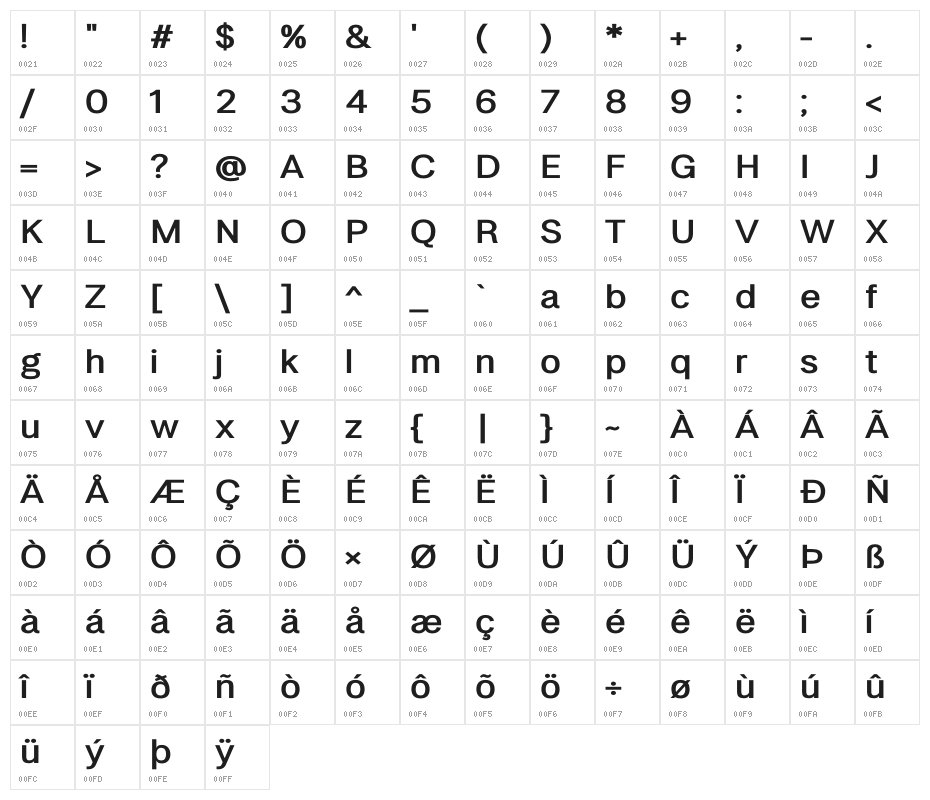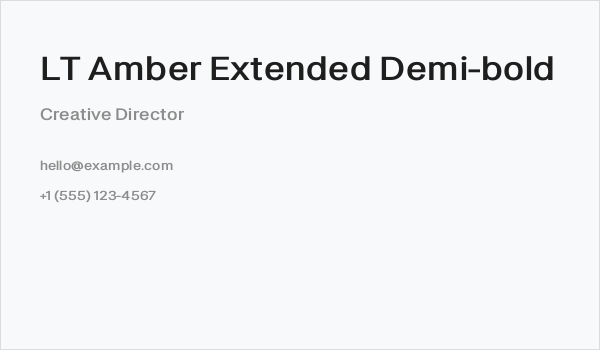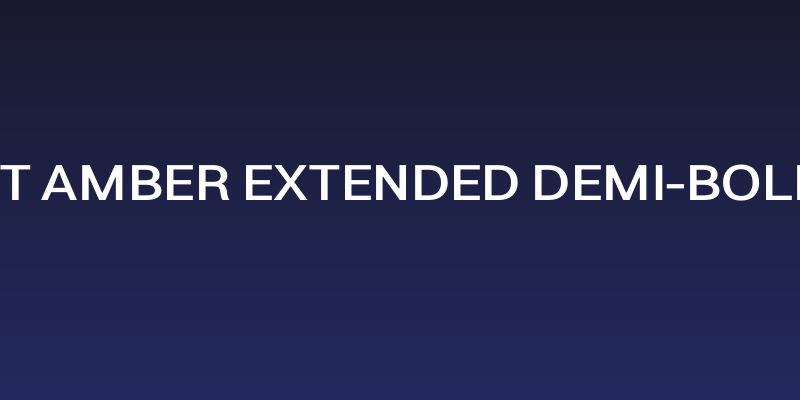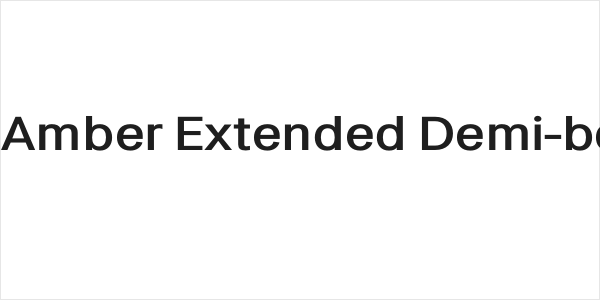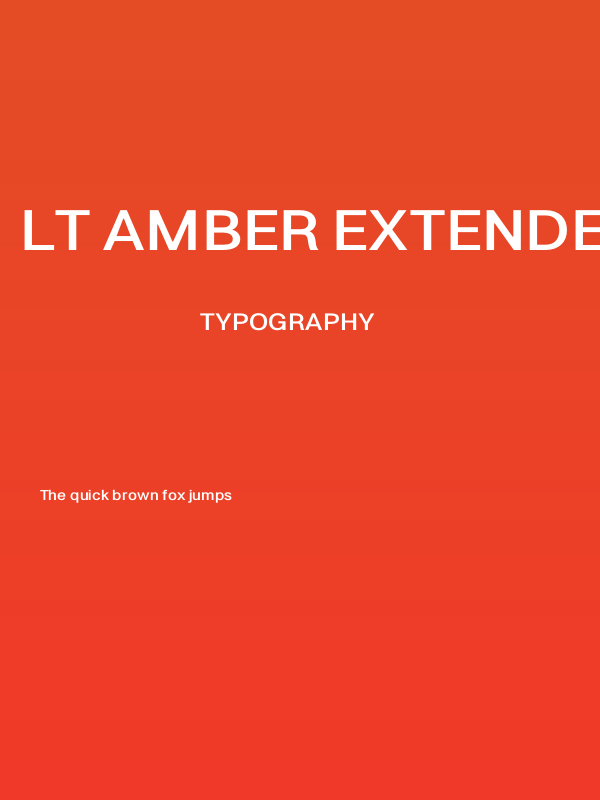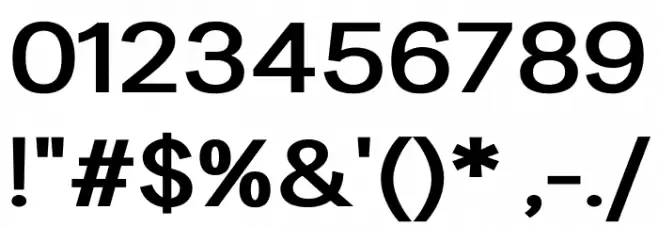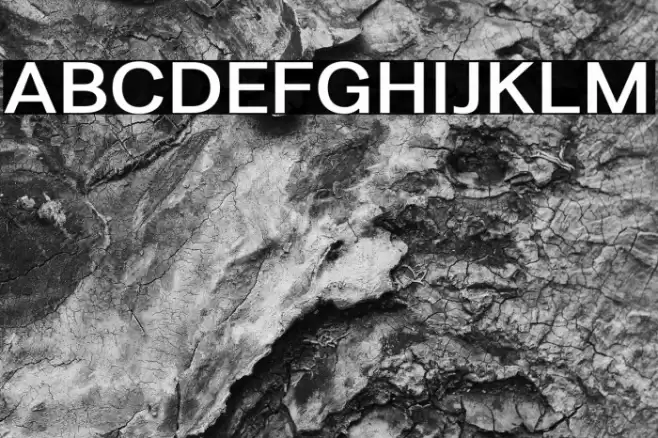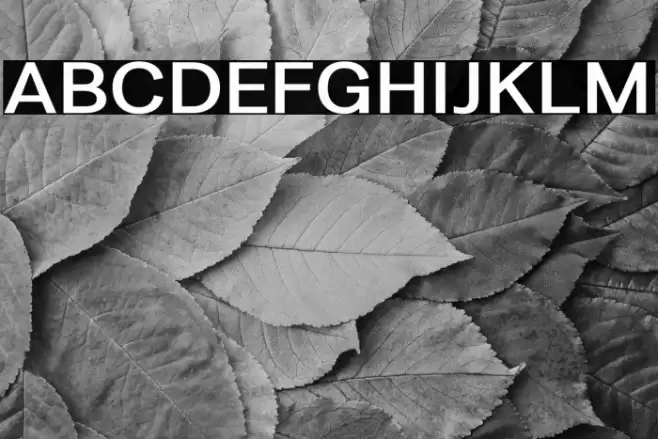
LT Amber Extended Demi-bold Font
This font features a clean and modern sans-serif design with an extended width, providing a bold and impactful appearance. The characters are well-defined with consistent stroke thickness, making it highly legible. The uppercase and lowercase letters maintain a uniform style, while the numerals are clear and distinct. Special characters are included, offering versatility for various design needs. The overall look is professional and contemporary, suitable for a wide range of applications.
| Use Case | Headlines, Logos, Advertising |
| Proposed Projects | Ideal for branding, advertising, headlines, and digital media where a strong and clear typeface is needed. |